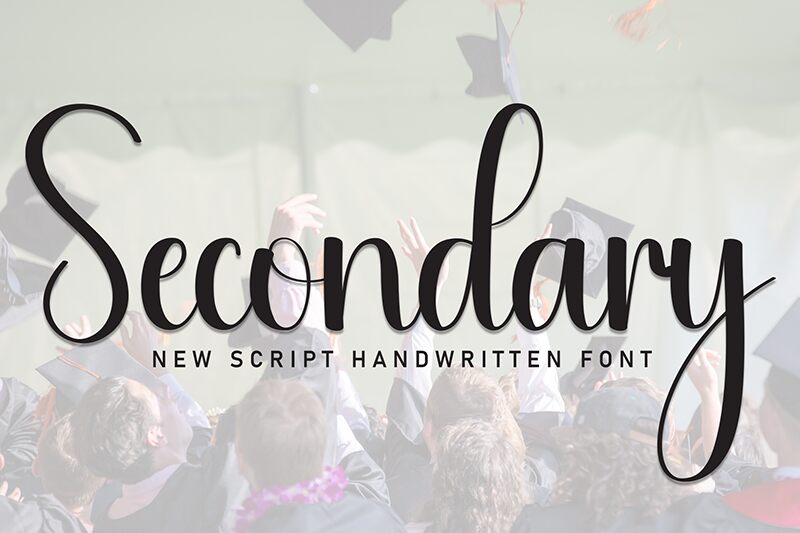
Secondary
Secondary font by Andi Moz is a condensed handwritten font with elegant and fluid features. It combines sophistication and modernity into one spectacular script with decorative flair and romantic nature. The distinctiveness of this free font makes it stand out in a way that makes any design using it stand out as well.